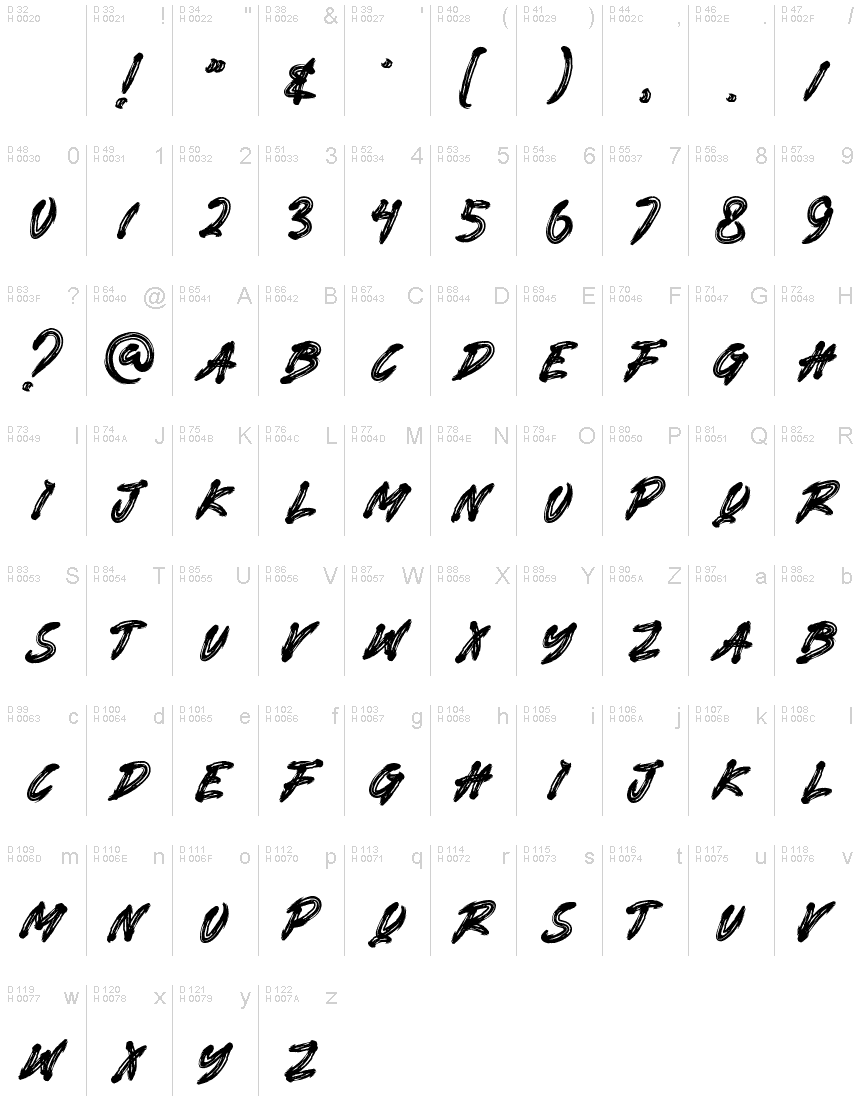
YESTERDAY
Yesterday, a bold brush font designed by AMINMARIO 2020, brings a touch of artistic flair to your projects. With its expressive strokes and dynamic appeal, this font is perfect for crafting eye-catching headlines, logos, and posters that demand attention. Whether you're working on an edgy fashion campaign or a vibrant music festival poster, Yesterday's boldness adds impact to your designs. Its versatility extends to digital media as well – from social media graphics to website headers – providing a modern and energetic vibe. Embrace the boldness of Yesterday and infuse your projects with creativity and style.